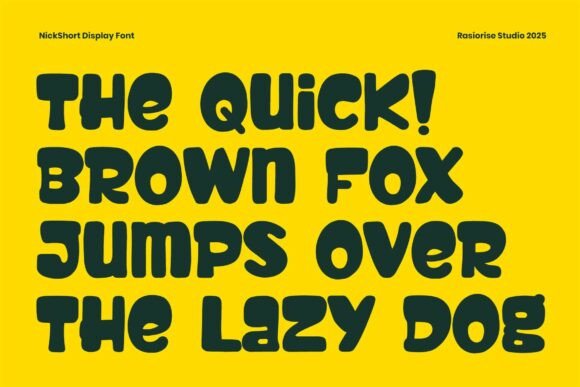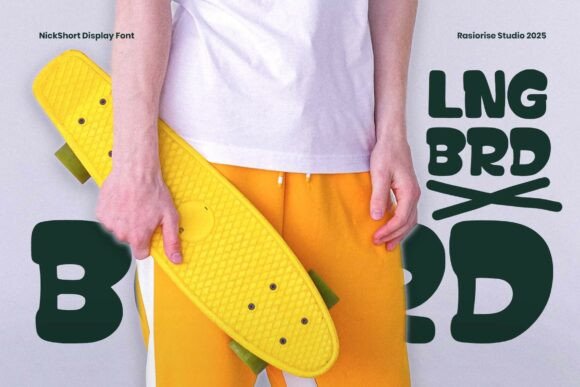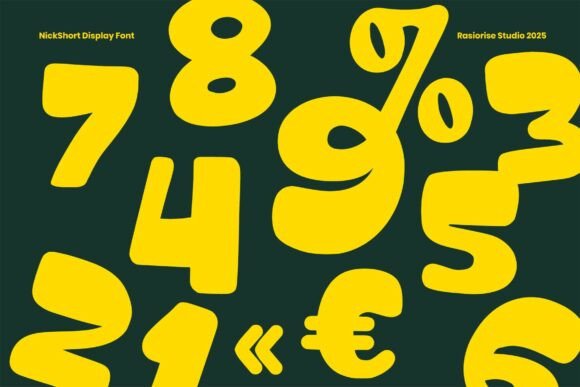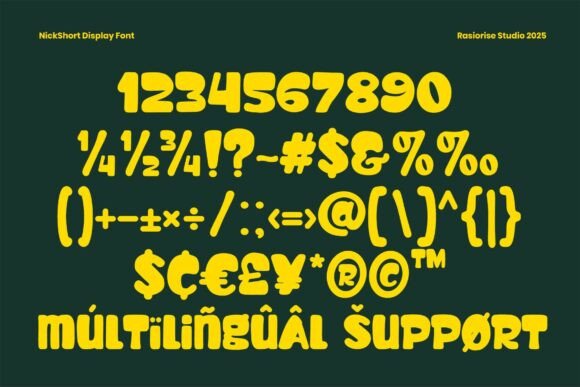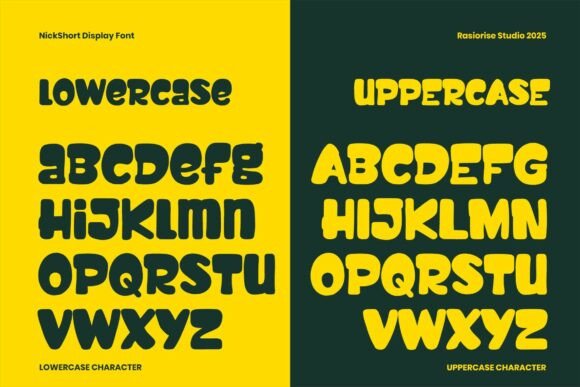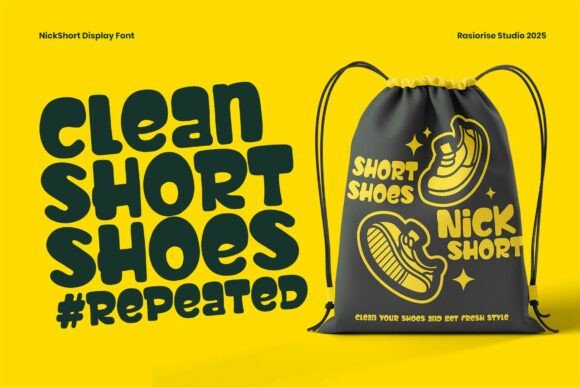
Introduction to Nick Short Font
Nick Short Font has been released for those of you who are looking for a Handwritten display font A handwritten font that combines the freestyle urban/street rounded typeface.